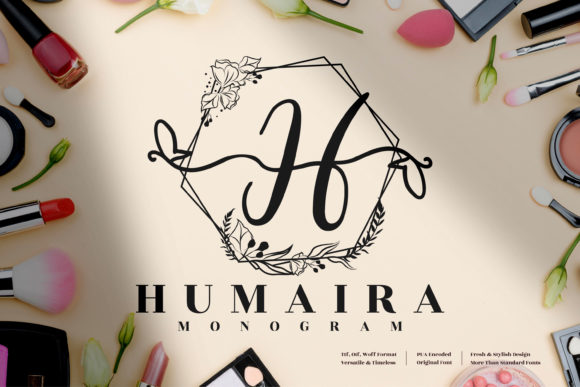
Unleash the artistry of expression with Humaira Monogram - an exquisite display font that's sure to captivate hearts. Enter a realm of elegance and sophistication, where every letter dances with grace and charm. Allow yourself to be swept away by its intricate leaf ornaments, a testament to nature's enduring beauty. Infuse your creations with a touch of ethereal charm, perfect for wedding invitations that exude romance and timeless allure. Embrace the artistry of stationary art, crafting pieces that whisper of heartfelt sentiments and heartfelt connections.
Humaira Monogram's allure extends beyond the traditional, seamlessly adapting to the digital realm. Its presence graces social media posts, adding a touch of elegance to your online interactions. Let your logo designs stand out, imbued with a mark of distinction and timeless appeal. Create greeting cards that warm hearts, spreading joy and cheer with every message.
With Humaira Monogram, the possibilities are boundless. Its versatility grants it a place in diverse design projects, from medical websites seeking a touch of professionalism to fashion blogs yearning for a hint of luxury. Embrace the boundless potential, let your creativity soar, and craft visual masterpieces that leave an unforgettable impression.
Humaira Monogram - the font that captivates, inspires, and elevates your designs. Experience the fusion of art and functionality, where every character tells a story. Take the first step towards creating something truly remarkable - download Humaira Monogram today and unlock a world of enchanting possibilities.